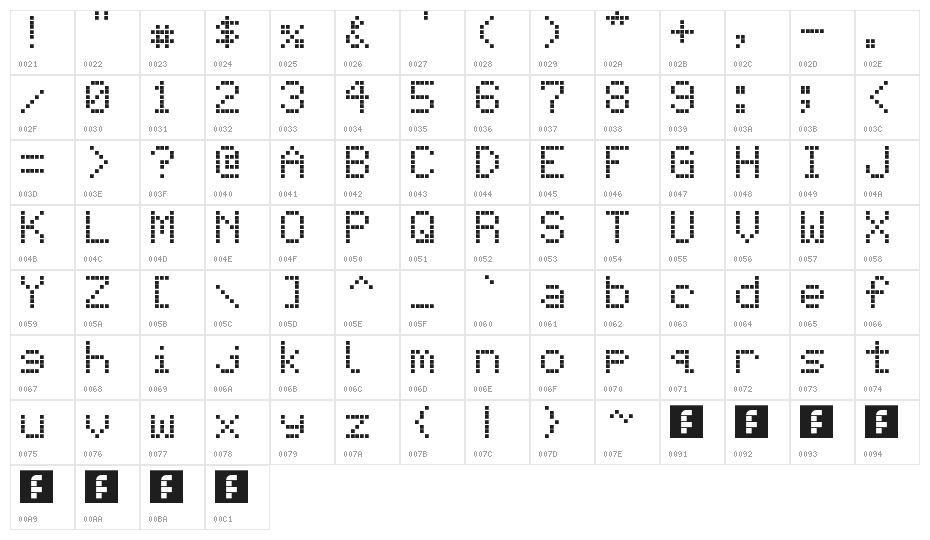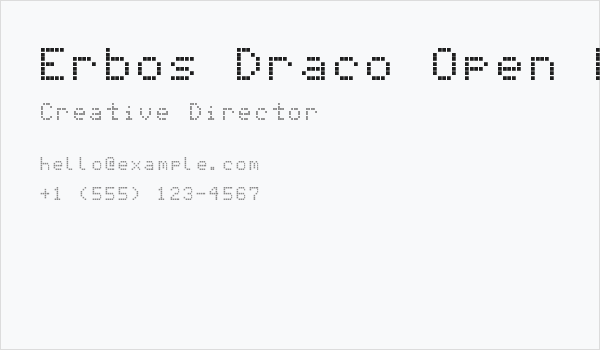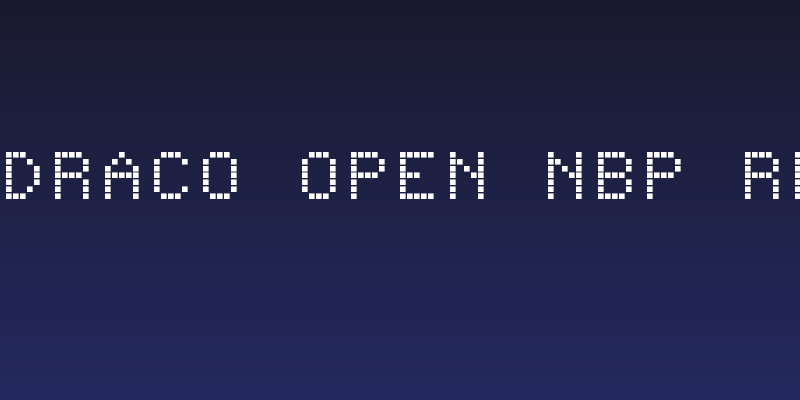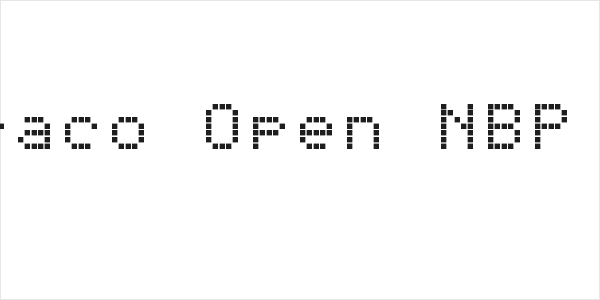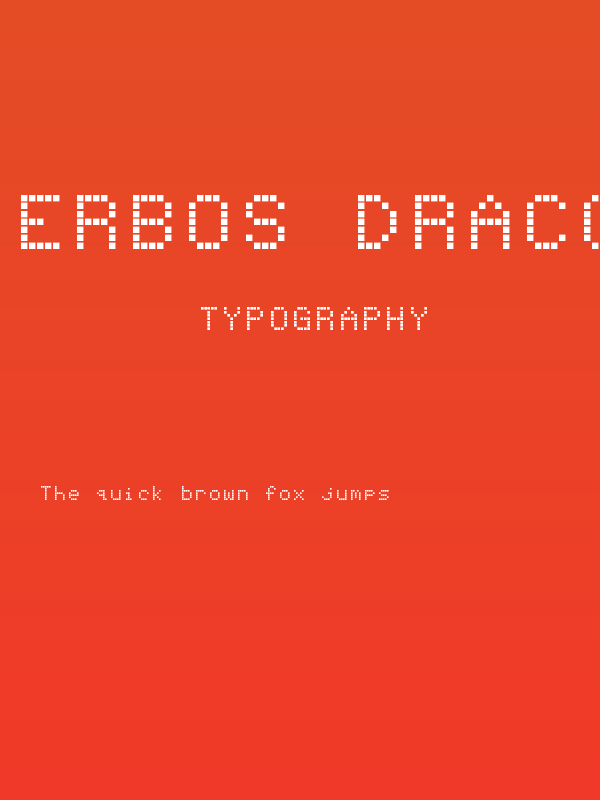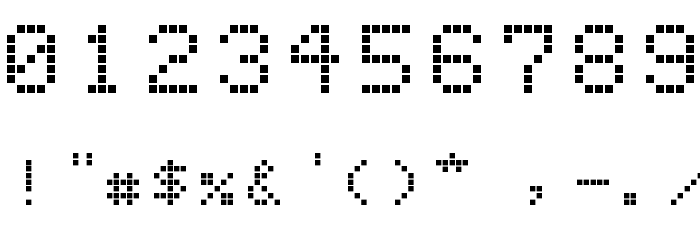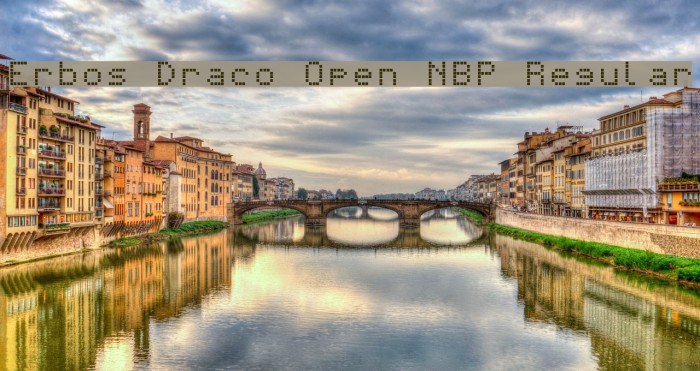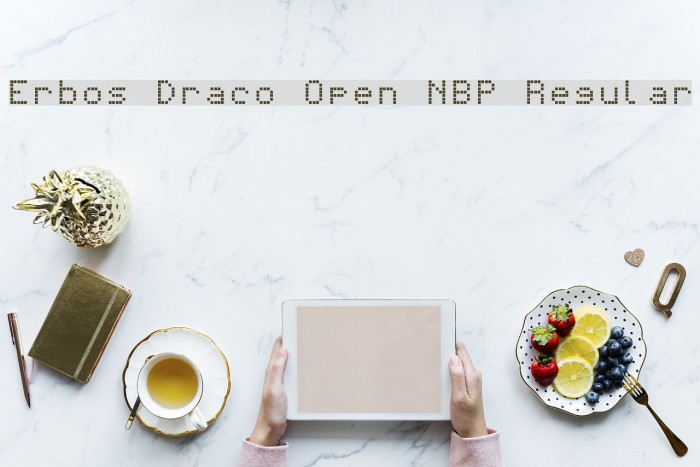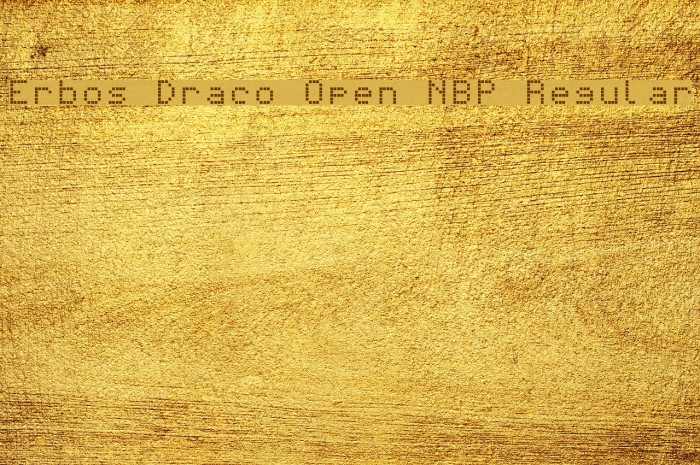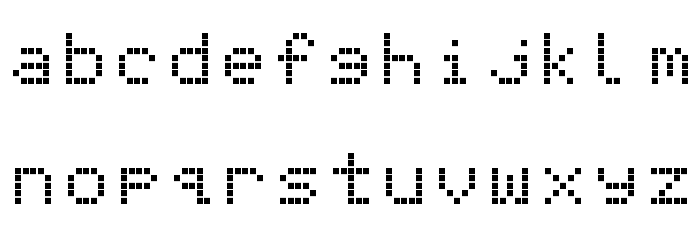
Erbos Draco Open NBP Regular Font
Erbos Draco Open NBP Regular Description
This font features a unique pixelated design, reminiscent of early digital displays and retro gaming aesthetics. Each character is composed of small, uniform squares, creating a grid-like appearance that is both modern and nostalgic. The uppercase and lowercase letters maintain a consistent height, while the numerals and special characters integrate seamlessly into the overall style. This font's geometric precision and uniformity make it ideal for projects that require a digital or technological theme. Its distinct appearance ensures high legibility, even at smaller sizes, and adds a playful yet structured element to any design.
| Overall Style | Retro, Digital |
| Use Case | Logos, Headlines, Digital interfaces |
| Proposed Projects | Ideal for video game graphics, tech-themed posters, digital art, and retro-style branding. |
| Author | Fonts by Måns Grebäck |